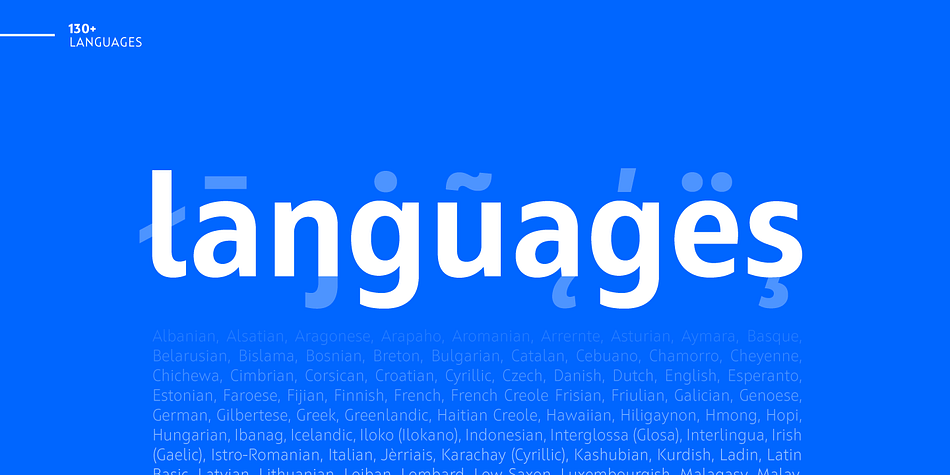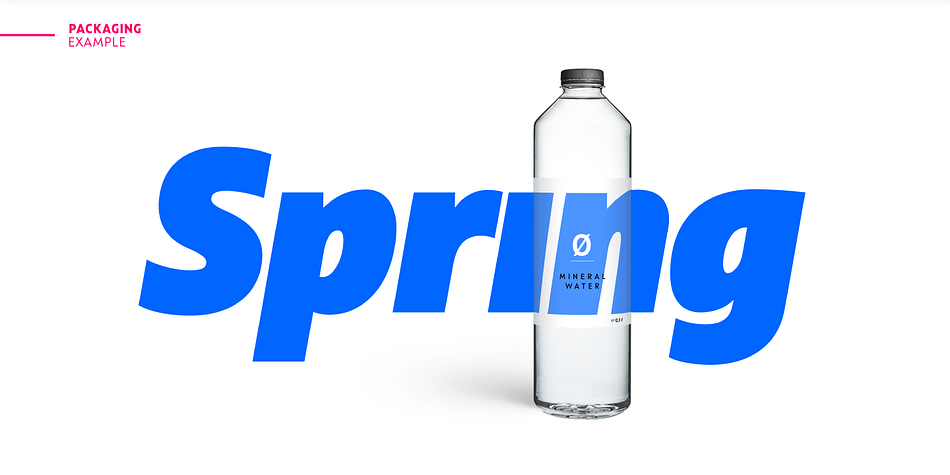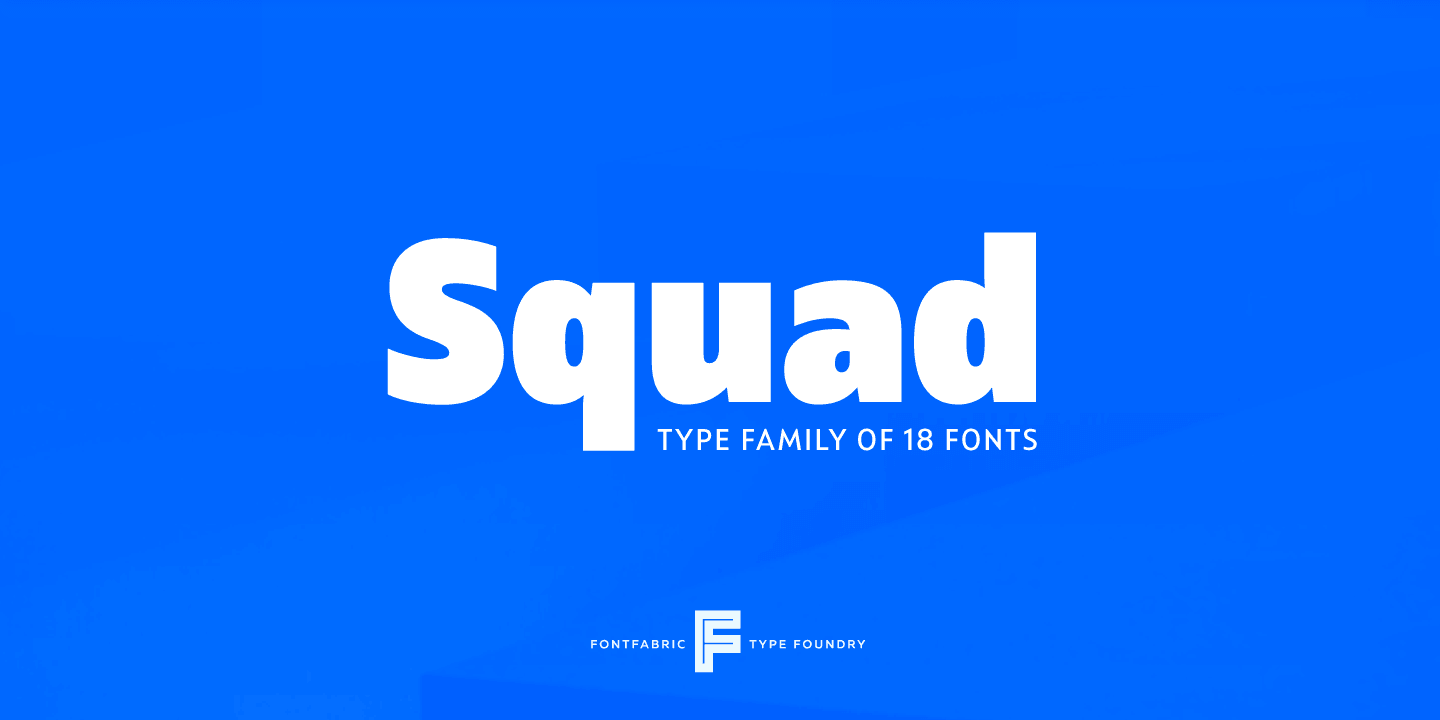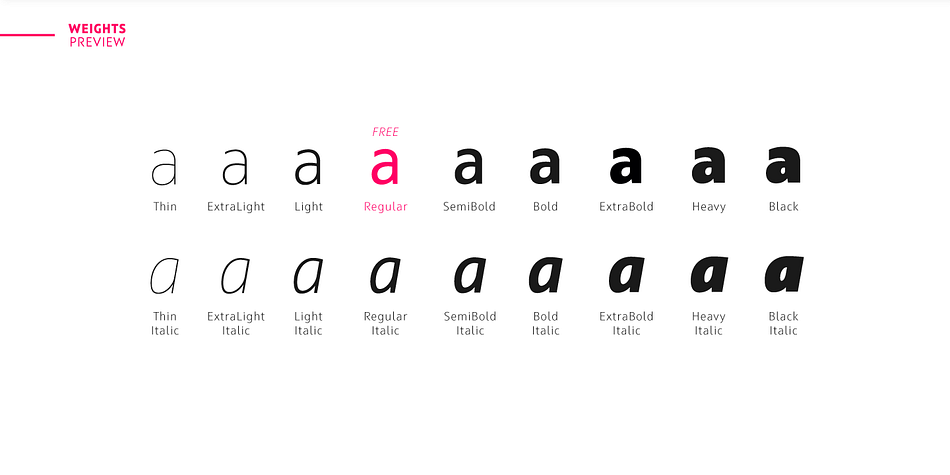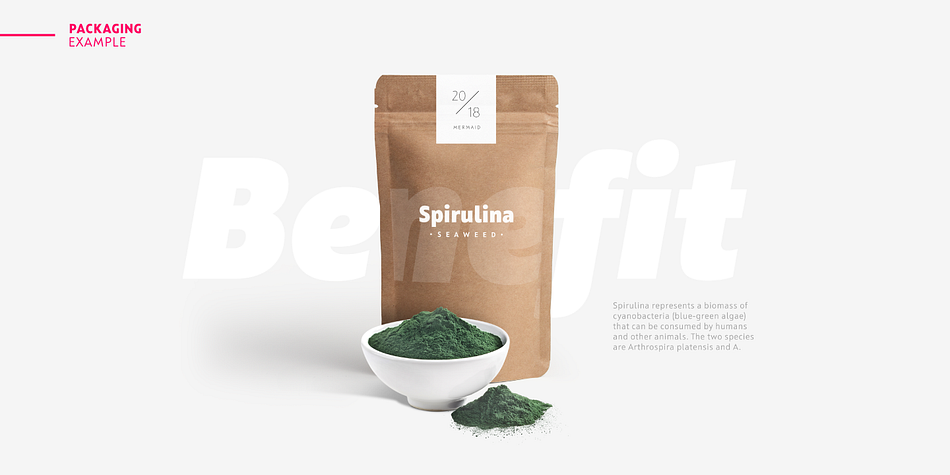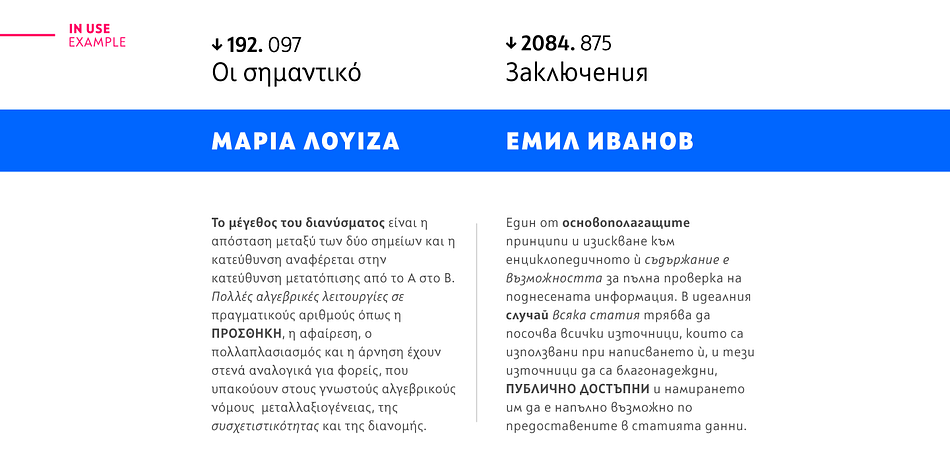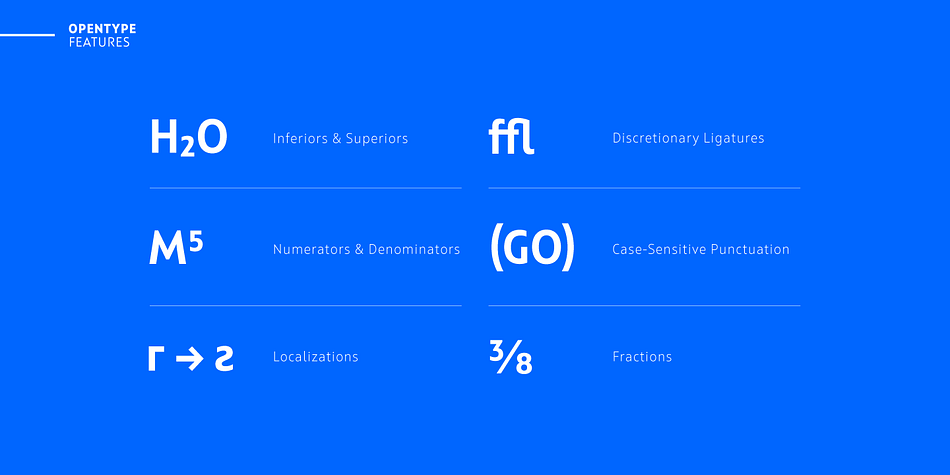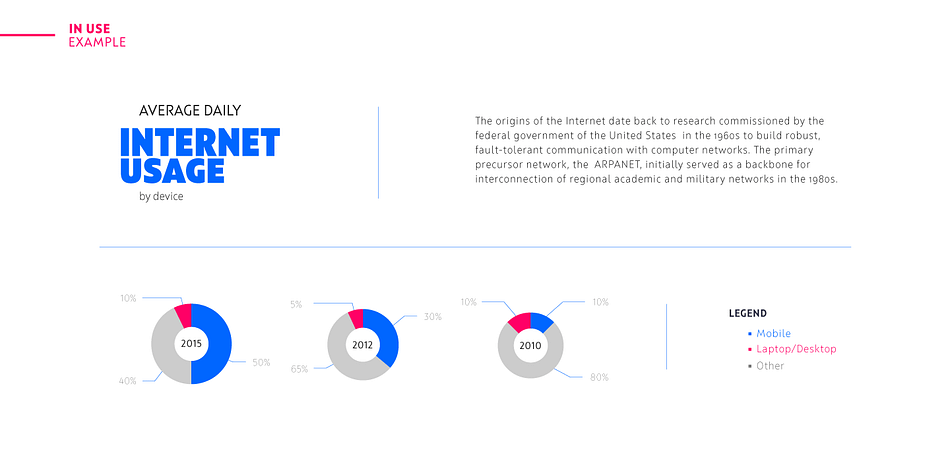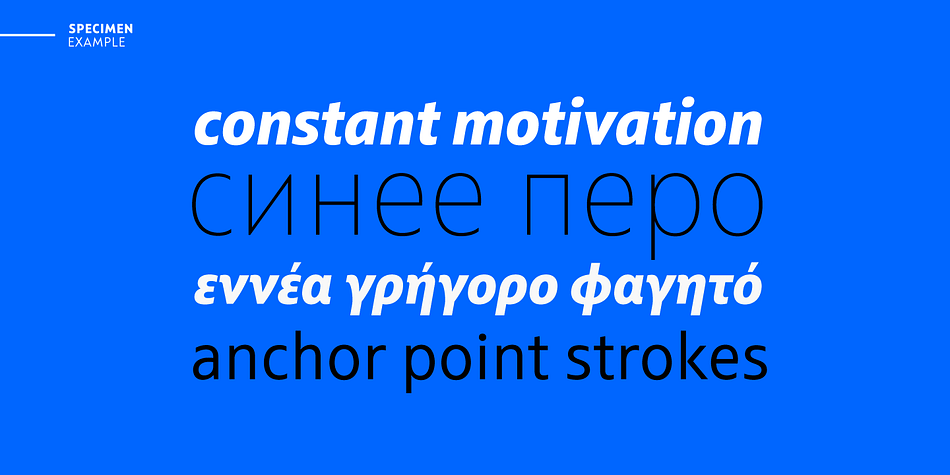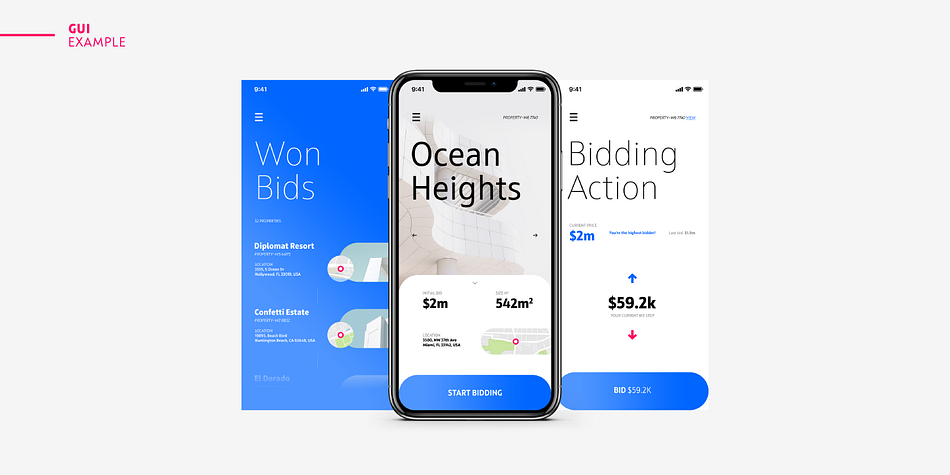
Designed by Svetlin Balezdrov and Svetoslav Simov, Squad is a sans serif font family. This typeface has eighteen styles and was published by Fontfabric.
Squad is a humanist sans serif with semi-condensed proportions. Inspired by Adrian Frutiger’s perfectionist style this typeface is a harmonious breed of humanist heritage and contemporary simplicity. The balanced characteristics, clear and legible silhouette and simultaneously vivid appearance of Squad makes it perfect for any design purpose. The figures are evident — it consists of 18 styles from Thin to Black; covers Extended Latin, Cyrillic, and Greek with the span for more than 130 languages; flawless functionality and supporting many OpenType features, such as localizations, tabular numerals, inferiors & superiors, numerators & denominators, fractions, discretionary ligatures, case sensitivity etc.
• Over 780 glyphs in 18 styles (Thin to Black)
• Extended Latin, Cyrillic and Greek scripts for more than 130 languages;
• High x-height and Semi Condensed proportions;
• Moderate contrast and vertical stress;
• Humanistic characteristics and open vertical terminals;
• True form of italics;
• Coverage of multiple OpenType features;
• Perfect for text, headlines, and web;